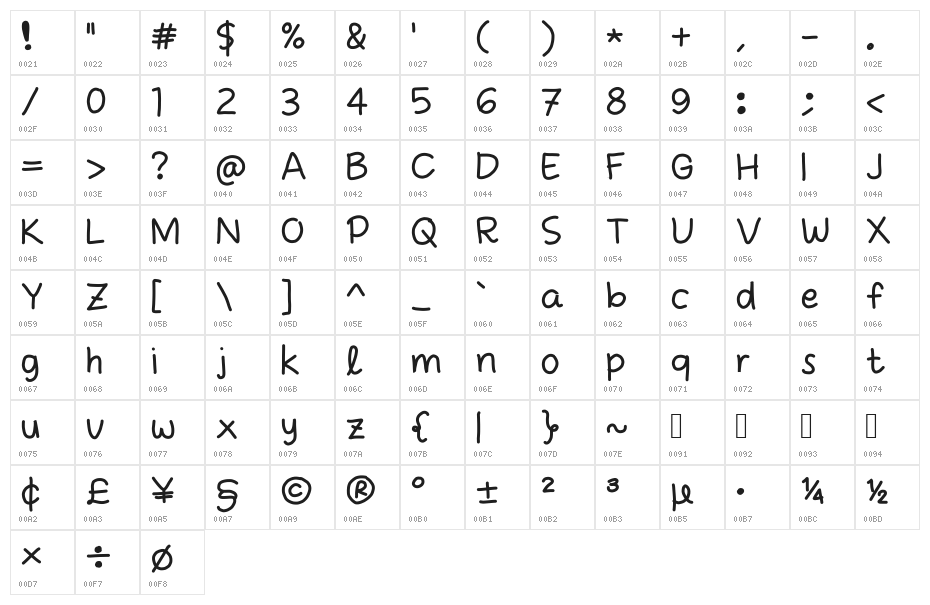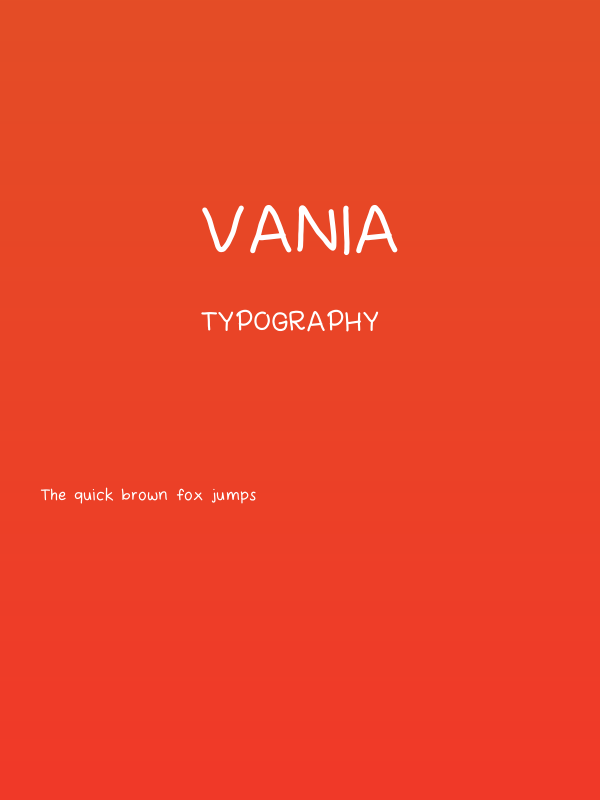
vania Font
vania Description
This playful and informal font features a handwritten style with rounded, smooth edges, giving it a friendly and approachable appearance. The letters are slightly irregular, adding to the casual and whimsical feel. The uppercase and lowercase characters maintain a consistent style, with a slight slant that enhances the handwritten effect. The numerals and special characters are designed to match the overall aesthetic, ensuring cohesion across all text elements. This font is ideal for projects that require a personal touch or a fun, lighthearted vibe.
| Use Case | Headlines, Informal text, Branding |
| Proposed Projects | Ideal for children's books, greeting cards, casual invitations, and playful branding. |